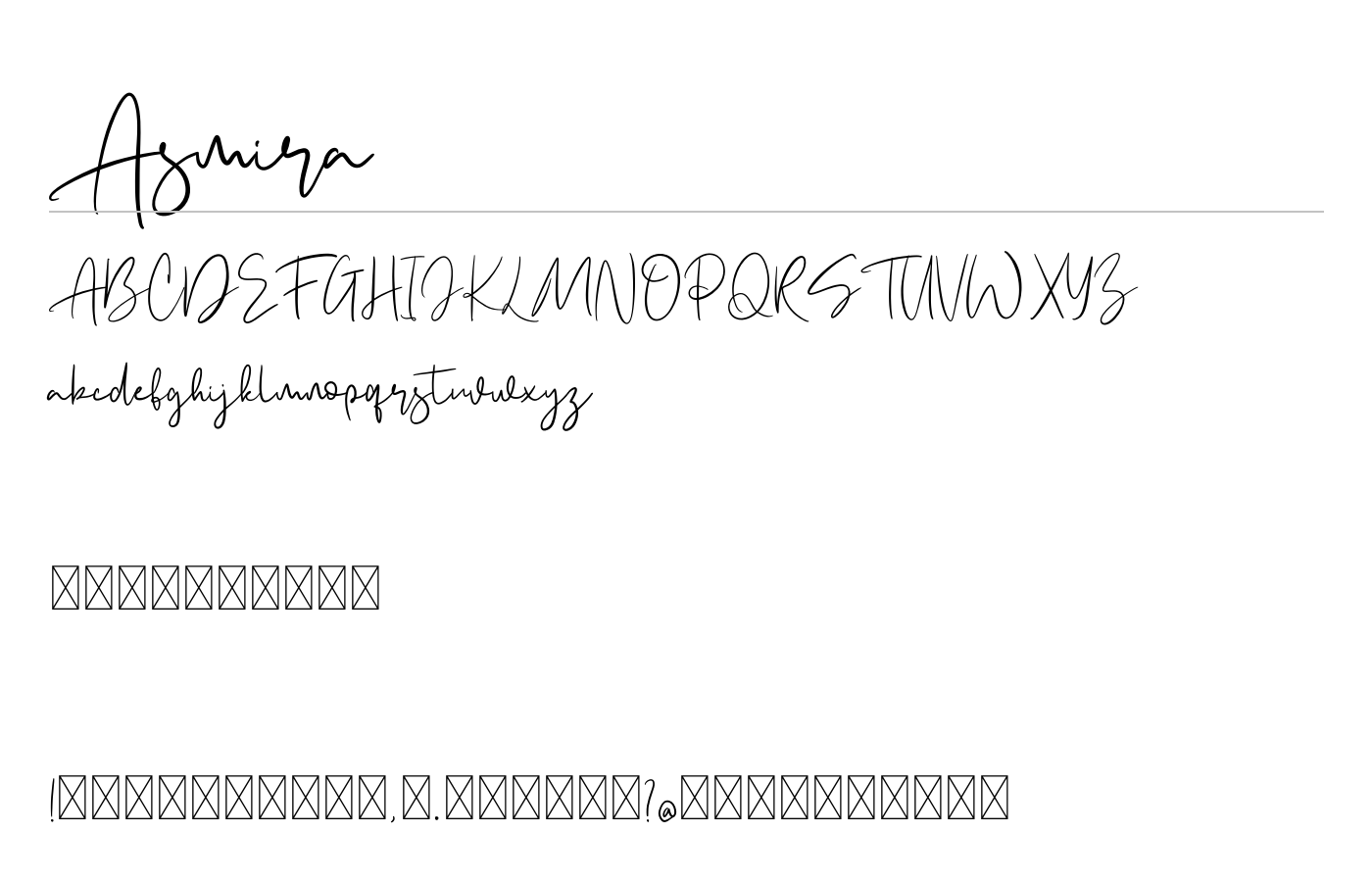
Asmira is a delicate, handwritten script font that features elegantly thin, flowing lines with a natural, casual feel. Its tall, narrow letterforms and smooth curves make it ideal for adding a personal, sophisticated touch to branding, invitations, and stylish editorial projects. This font works beautifully where a light, airy, and graceful aesthetic is desired, such as fashion or lifestyle designs.
Asmira Font
About Asmira Font
| Font family | Asmira Font |
| Designer | Ana Natalia |